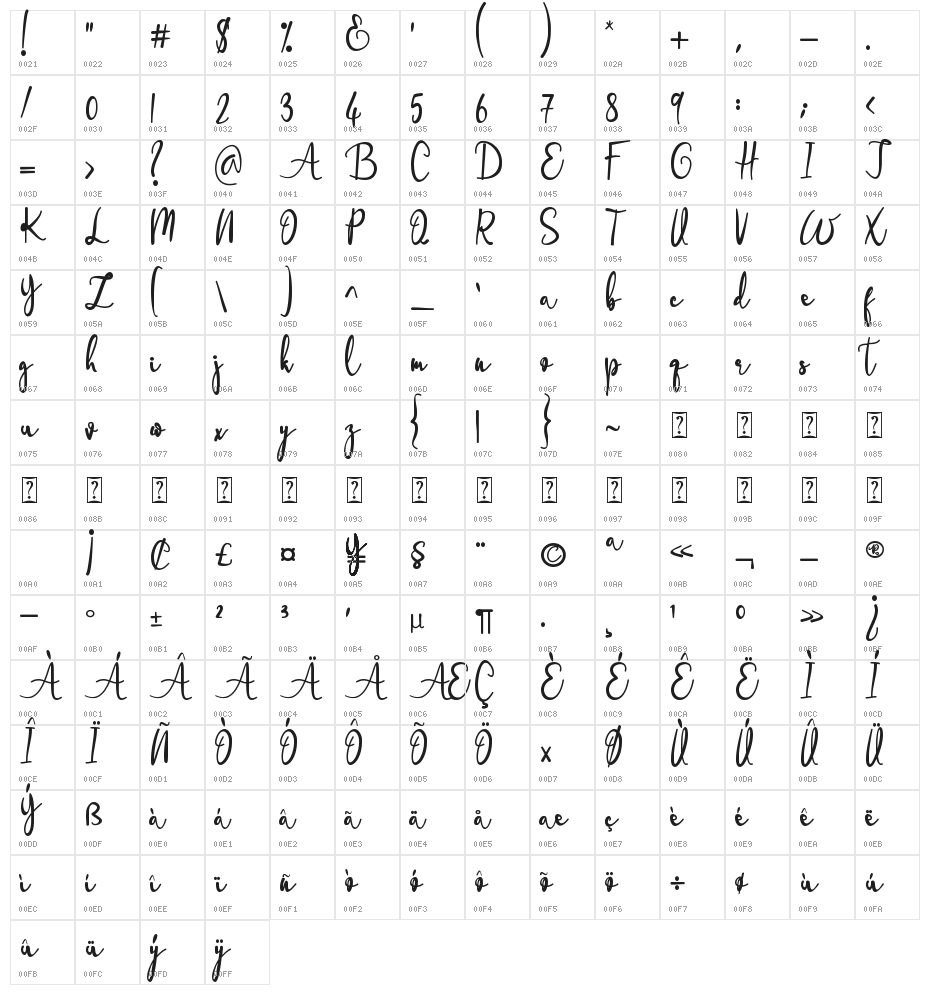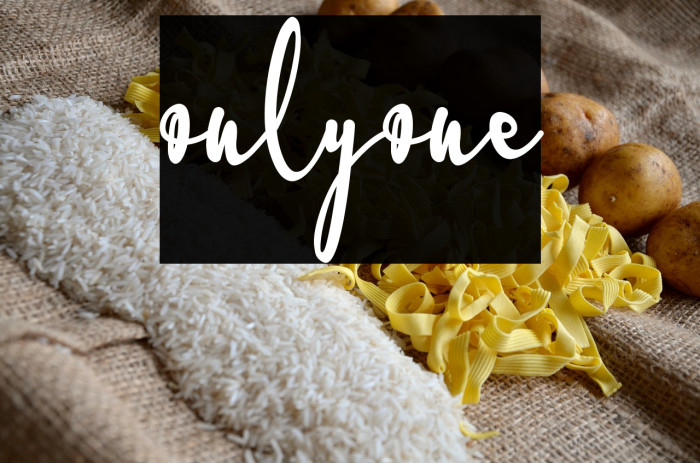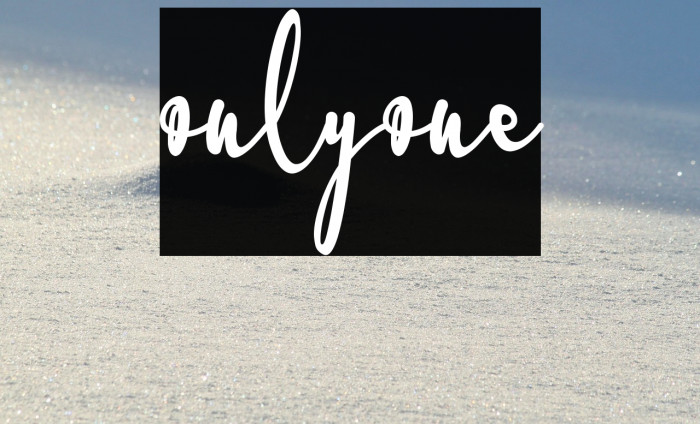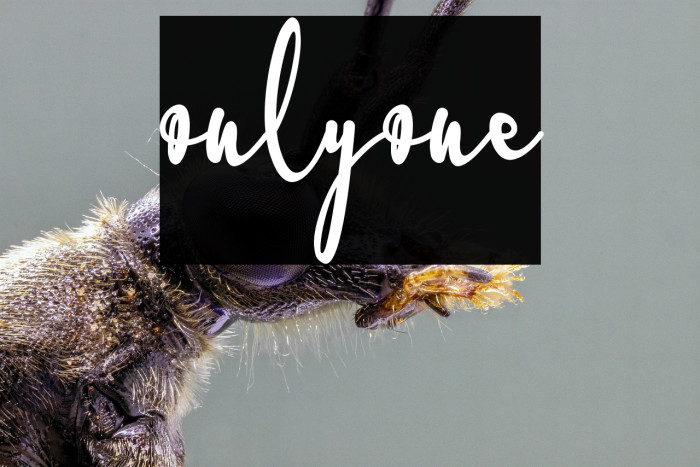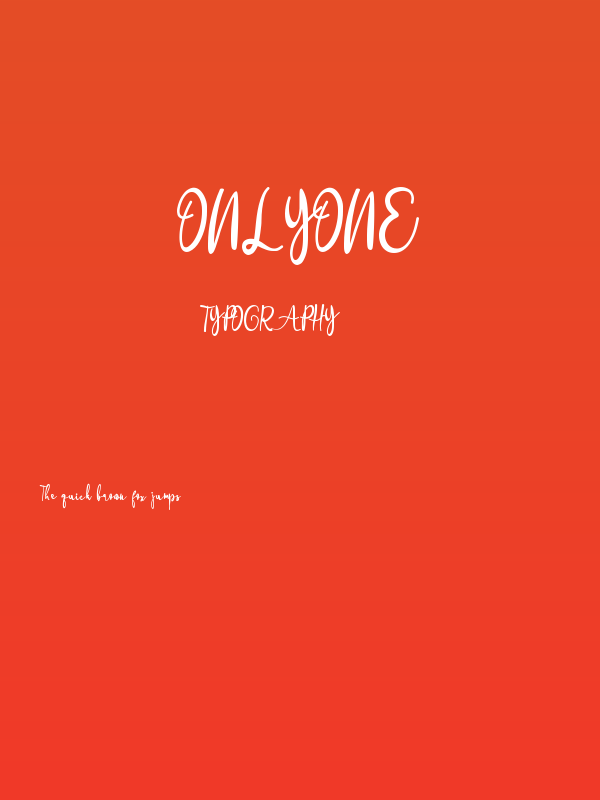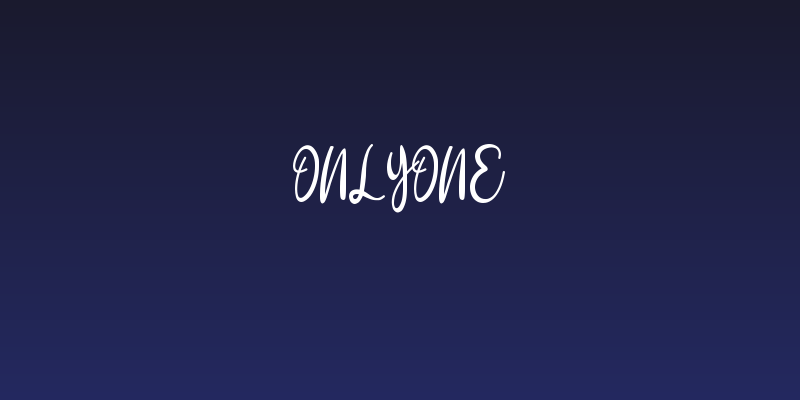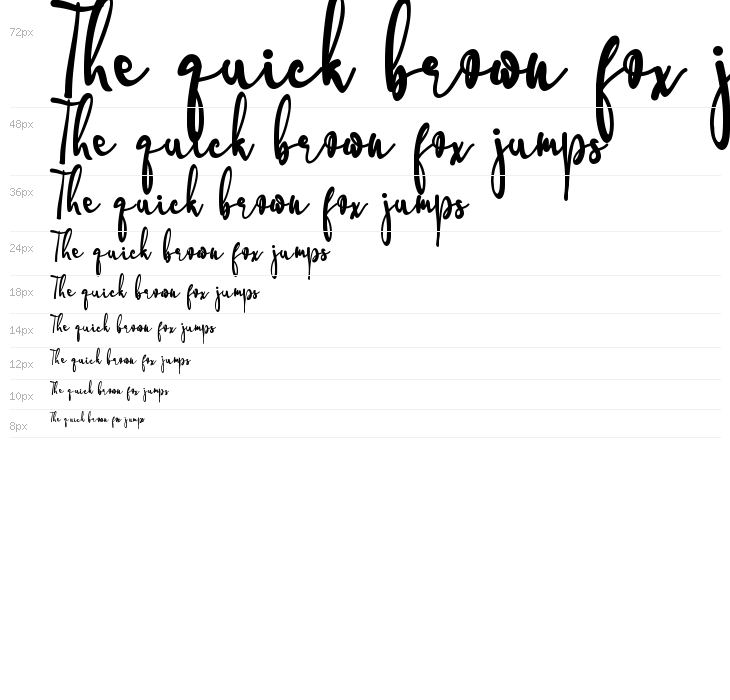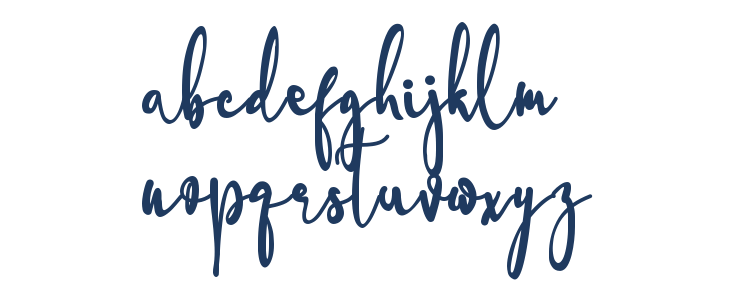
onlyone Font
onlyone Description
This font features a lively and expressive handwritten style, characterized by its fluid and cursive letterforms. The uppercase letters are bold and dynamic, with a playful yet elegant flair, while the lowercase letters maintain a consistent flow, enhancing readability. The numerals are distinct and easy to distinguish, complementing the overall aesthetic. Special characters are creatively integrated, adding a touch of whimsy. The font's strokes vary in thickness, providing a medium contrast that adds depth and interest. Its overall appearance is modern and artistic, making it suitable for projects that require a personal and creative touch.
| Use Case | Logos, Headlines, Invitations |
| Proposed Projects | Ideal for greeting cards, invitations, branding, and social media graphics. |